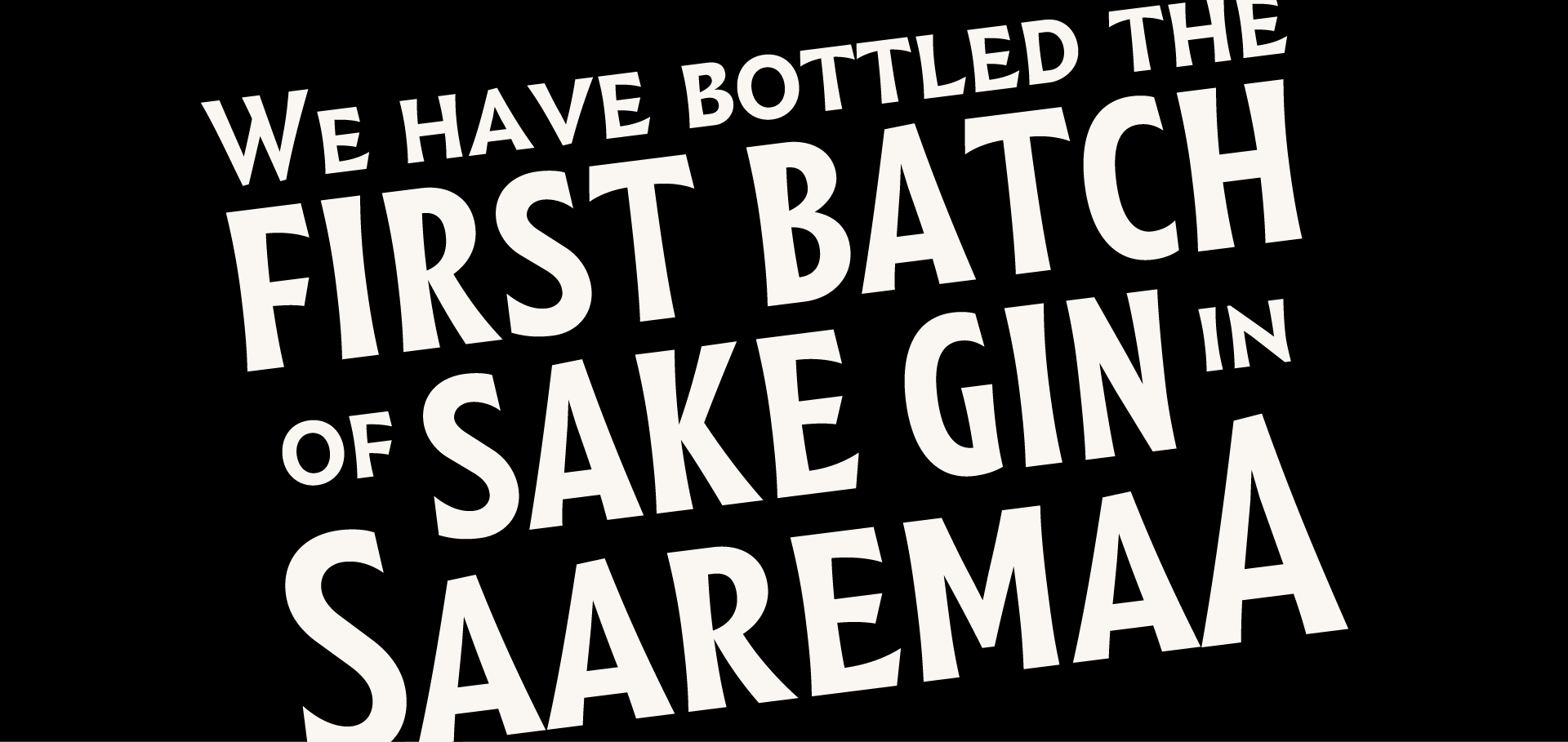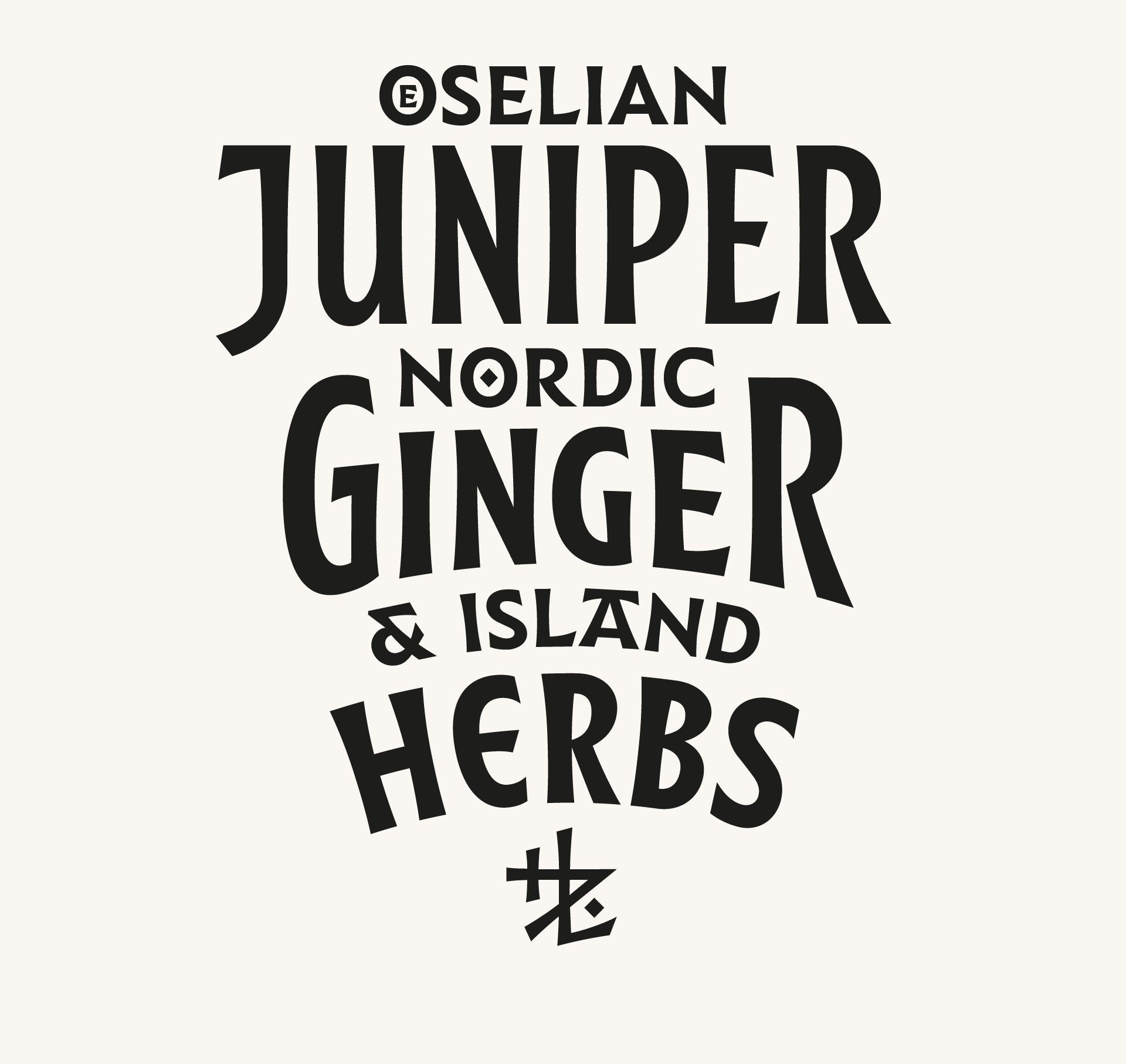
Öselian is a custom typeface designed for the Lahhentagge Distillery based on the island of Saaremaa in Estonia. The craft distillery produces one of Estonia's first craft gins, along with an expanding range of other spirits and tonics. The typeface is the key element of the Distillery’s overall look, and is used widely in their branding and product labels.
The typography reflects the sense of history and handcraft of the brand. It contains a range of special features, alternate characters and even a set of historical diacritics. The most significant of which is an old German umlaut which appears in the title of the Distillery's flagship product - Ösel Dry Gin.
Lately, in order to make it more versatile, the font family has been extended by Manu de Lignières, with a condensed version of the typeface which has been used for the design of a new spirit, soon to be released.